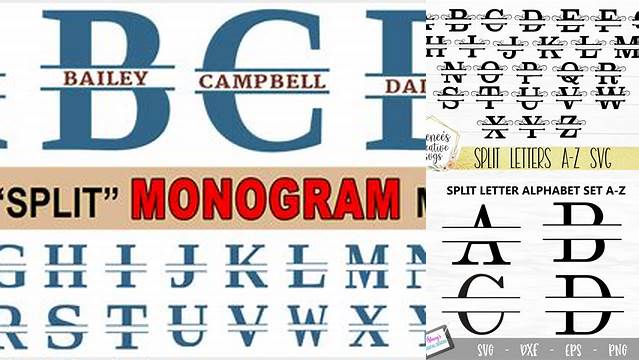
What are Split Letter Monograms?
Before we jump into the free downloads, let's clarify what split letter monograms actually are. Essentially, a split letter monogram takes a letter and divides it, usually horizontally, to create space for adding a name, word, or design element. This creates a stylish and personalized effect. You've probably seen them on logos, home décor, and various craft projects. The beauty of split letter monograms lies in their simplicity and elegance. They offer a clean and modern look while still allowing for personalization. Think of them as a blank canvas ready for your creative touch. They are incredibly popular for wedding invitations, custom apparel, and personalized stationery. The options are truly limitless, making them a go-to choice for designers and DIY enthusiasts alike.
Why Use Split Letter Monogram Fonts?
Why should you even bother with split letter monogram fonts? Well, the reasons are aplenty! First off, they offer a unique and customized feel that regular fonts simply can't match. A split letter monogram instantly elevates your design, adding a touch of sophistication and personality. Imagine crafting a welcome sign for your home with your family initial beautifully displayed in a split letter monogram. Or picture personalized tote bags for a bridal party, each featuring the recipient's initial in an elegant split font. The visual appeal is undeniable, and the personalized element makes your creations even more special. Beyond aesthetics, these fonts are incredibly versatile. They work well with various design styles, from rustic and vintage to modern and minimalist. You can use them on a wide range of projects, including stationery, apparel, home décor, and digital designs. The adaptability of split letter monogram fonts ensures they'll remain a valuable asset in your creative toolkit.
Personal Use vs. Commercial Use
So, what's the difference between personal and commercial use when it comes to split letter monogram fonts? This is a critical distinction to grasp. Personal use generally means using the font for projects that aren't intended to make money. Think of birthday cards, personal stationery, or gifts for friends and family. If you're creating something solely for your own enjoyment or to give away without charge, you're likely operating under personal use. Commercial use, on the other hand, involves using the font in projects that generate revenue. This includes creating logos for businesses, designing marketing materials, or selling products that incorporate the font. If you're making money directly or indirectly from your design, you need a commercial use license. It's essential to understand this difference because using a font licensed for personal use in a commercial project can lead to copyright infringement issues. Font creators rely on commercial licenses as a source of income, so respecting these terms is crucial for supporting the design community. If you're planning to use a split letter monogram font for a business venture, always ensure you have the appropriate commercial license.
How to Use Split Letter Monogram Fonts
Now that you've found your perfect split letter monogram font, how do you actually use it? The process is pretty straightforward, but here are some tips to get you started. First, you'll need to download the font file and install it on your computer. This usually involves double-clicking the font file and following the on-screen instructions. Once the font is installed, it will be available in your favorite design software, such as Adobe Photoshop, Illustrator, or even Microsoft Word. To create a split letter monogram, simply type the desired letter using the chosen font. Then, you'll need to add the split – this is where the design magic happens! You can do this by using graphic design software to create a horizontal line or shape that divides the letter. Alternatively, some split letter monogram fonts come with pre-designed split elements that you can easily insert. Next, you'll want to add the personalized text or design element within the split. This could be a name, a date, or even a small graphic. Experiment with different placements and sizes to achieve the desired look. Finally, consider adding embellishments or decorative elements to further enhance your design. This could include flourishes, borders, or other graphical elements that complement the split letter monogram. Remember, the key is to have fun and let your creativity flow!
Download Your Free Split Letter Monogram Font Today!
So there you have it! A comprehensive guide to split letter monogram fonts and where to download them for free. Now it's time to unleash your creativity and start designing! Whether you're working on a wedding invitation, a personalized gift, or a business logo, a split letter monogram can add a touch of elegance and sophistication to your project. Remember to explore the various resources mentioned in this article, such as DaFont, FontSpace, and Creative Fabrica, to find the perfect font for your needs. Always check the font licenses before using a font in a commercial project, and don't be afraid to experiment with different styles and pairings. With a little creativity and the right tools, you can create stunning split letter monograms that will impress your audience. Happy designing!